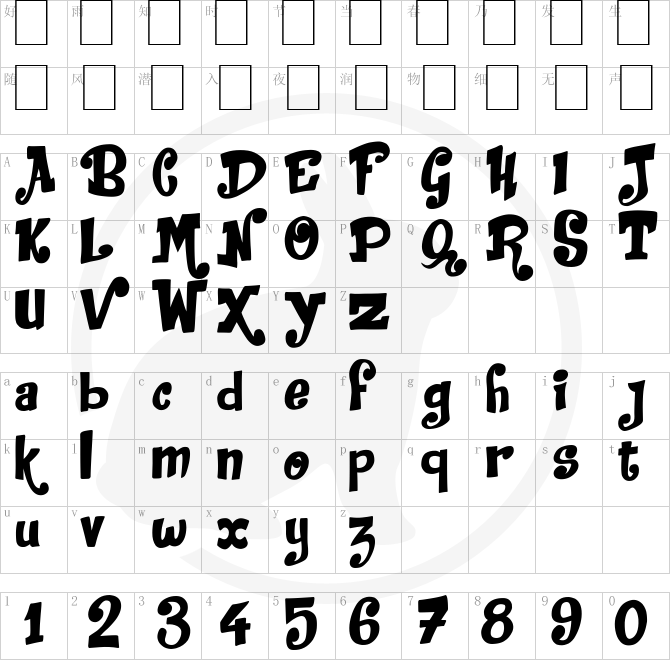
- Font Name:Jack in the Box
Jack-in-the-Box.ttf is a very beautiful artistic font, Jack-in-the-Box.ttf is widely used in the design and printing of various books and pictures,Jack-in-the-Box.ttf has a strong visual impact,Jack-in-the-Box.ttf is a commonly used font in newspapers, magazines and books, and is used in posters, e-commerce Poster design, store design, logo design, font design and other fields.Jack-in-the-Box.